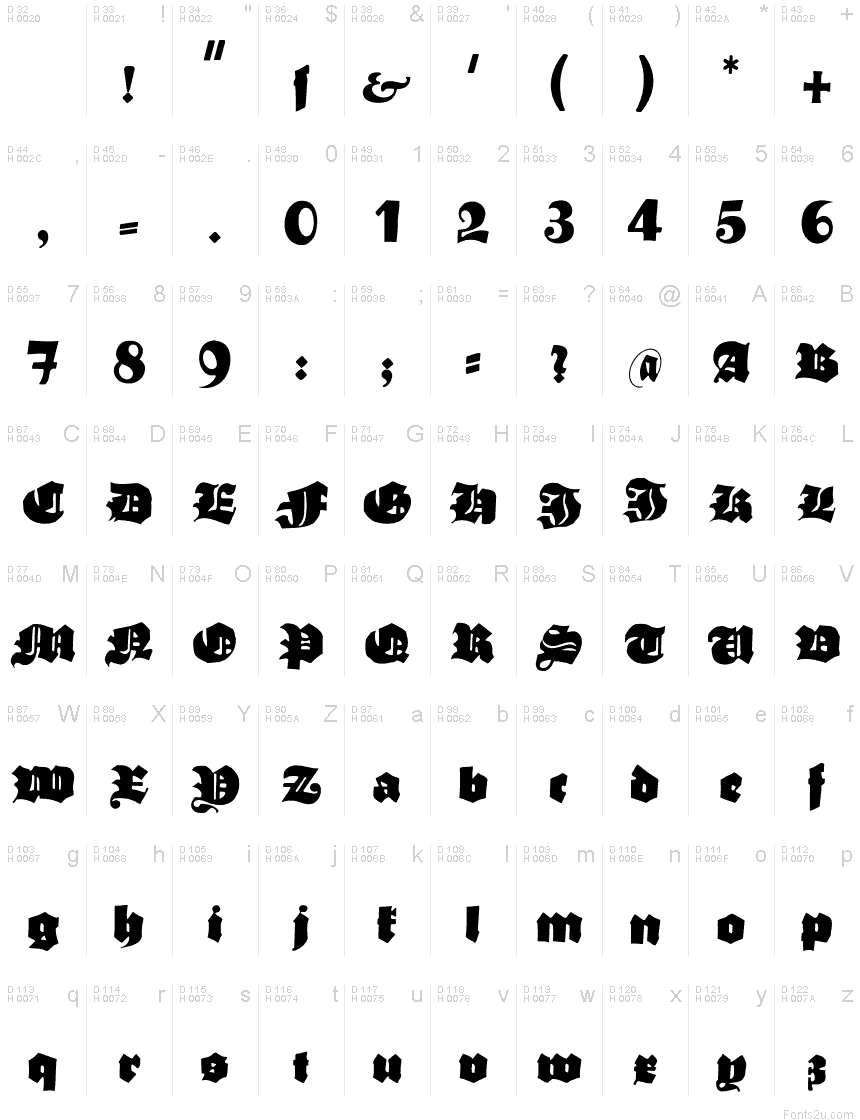
TypoasisBoldGothic
Typoasis Bold Gothic by M. Klein is a free blackletter display font built from broad forms and sharply cut edges. Its letters lean into medieval ornament without fine pen details. Angular notches keep the silhouette lively.
Its medieval fantasy character suits metal album covers and game graphics, where the lettering can feel carved or heraldic. It also fits horror posters and themed event branding through its dense shapes and irregular points. Across these uses, the shared link is lettering that behaves more like an emblem than ordinary text.